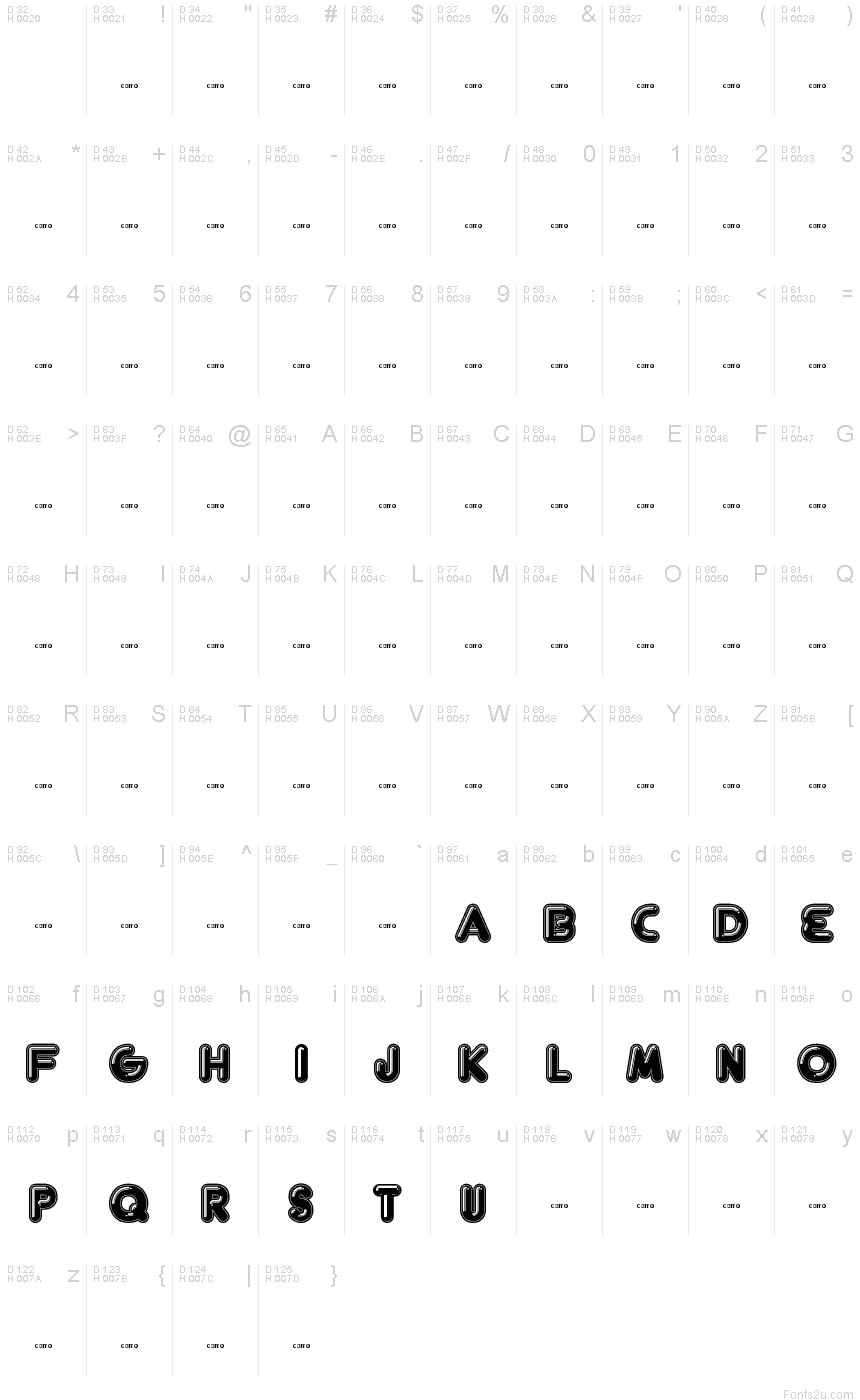
FT Helsingfurt
FT Helsingfurt font by Fenotype is a free groovy display typeface with a thick, glossy bubble look that almost feels inflatable. Heavy rounded strokes, shiny highlights, and a dotted inner line give letters a candy-coated, neon-sign vibe that jumps off the screen. The shapes stay friendly and legible, so even with all the layering and shine, your words read fast and loud.
Using FT Helsingfurt, you can instantly turn simple words into bold graphic moments for posters, candy or snack packaging, kids’ event flyers, social media graphics, sticker-style logos, and playful game titles. This free font works best at big sizes where its plump curves and inner detailing can breathe; pair it with a clean geometric sans in small text to keep things balanced and readable.